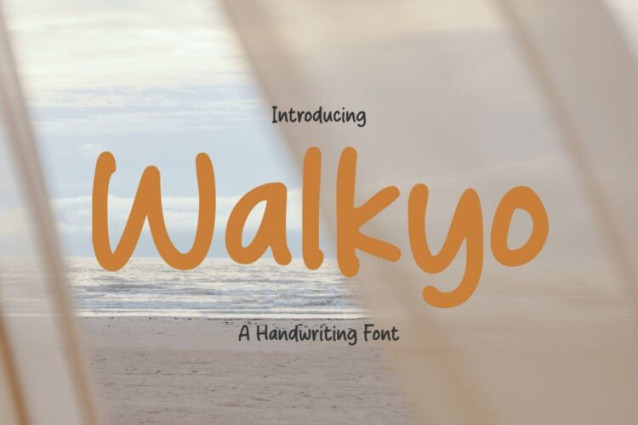
Walkyo Font
Walkyo Font is a simple and friendly handwritten font. Its natural and unique style makes it incredibly fitting to a large pool of designs. The only limit is your imagination!